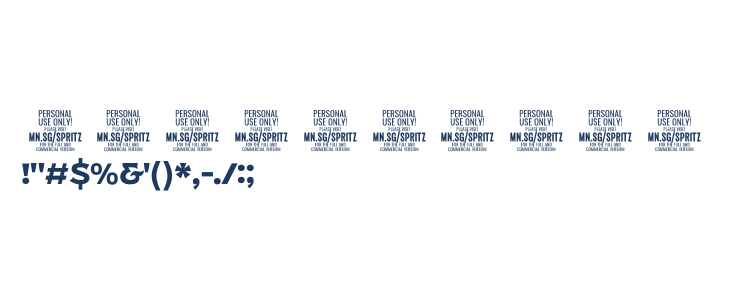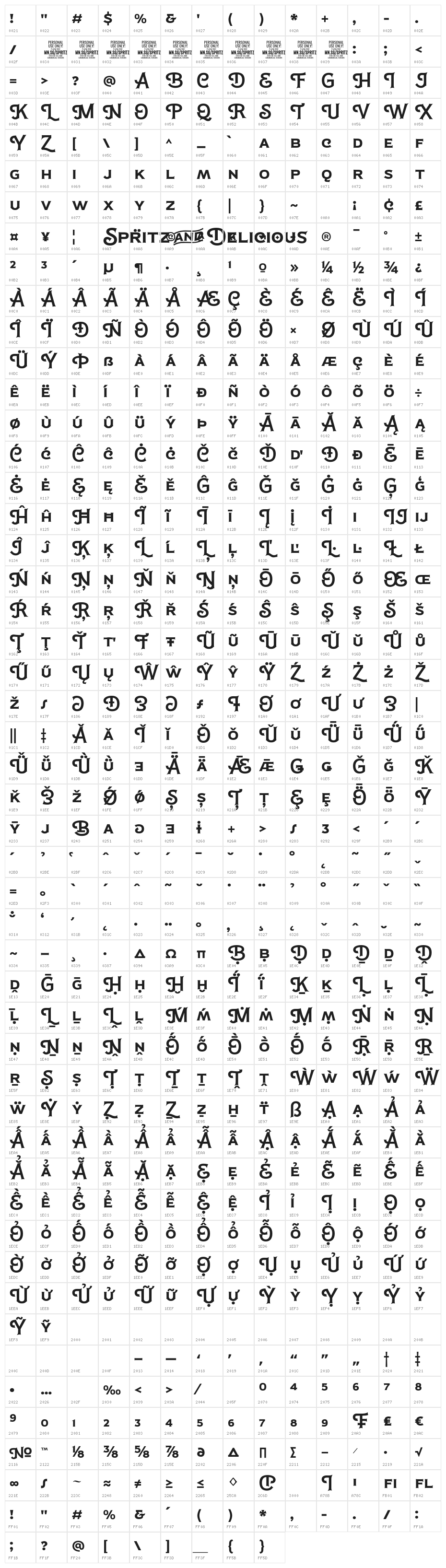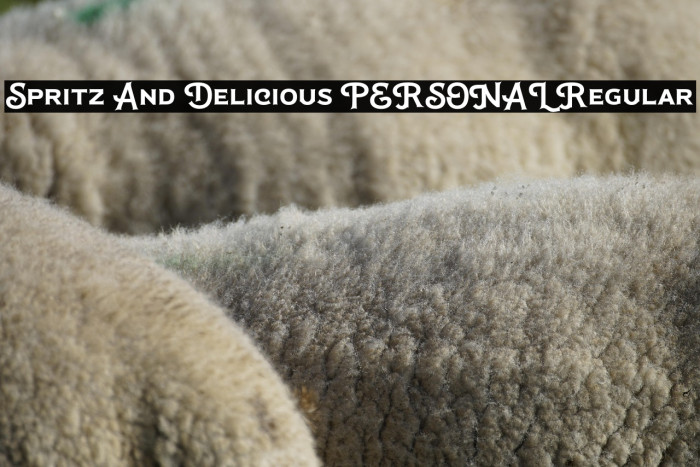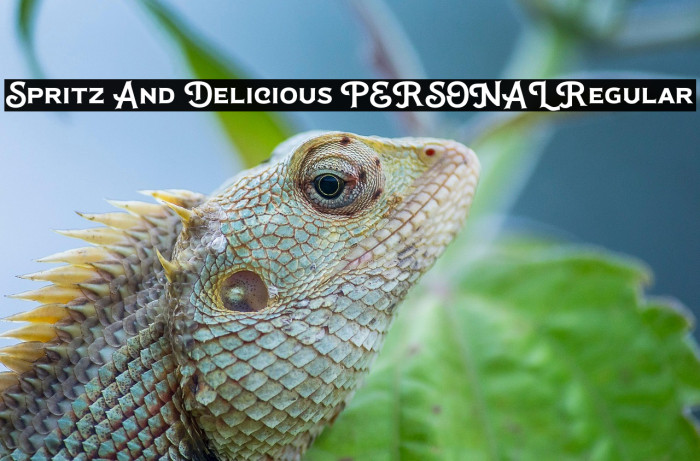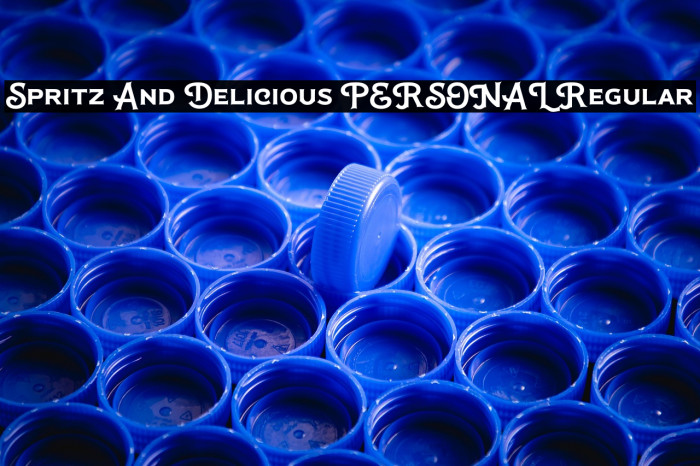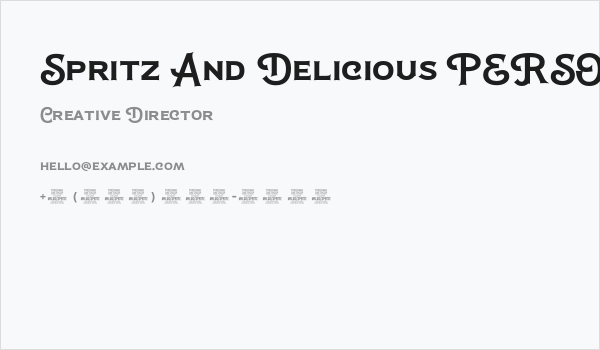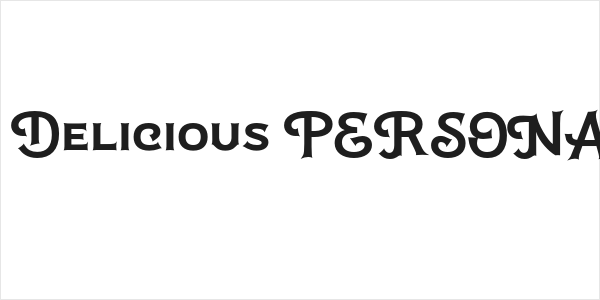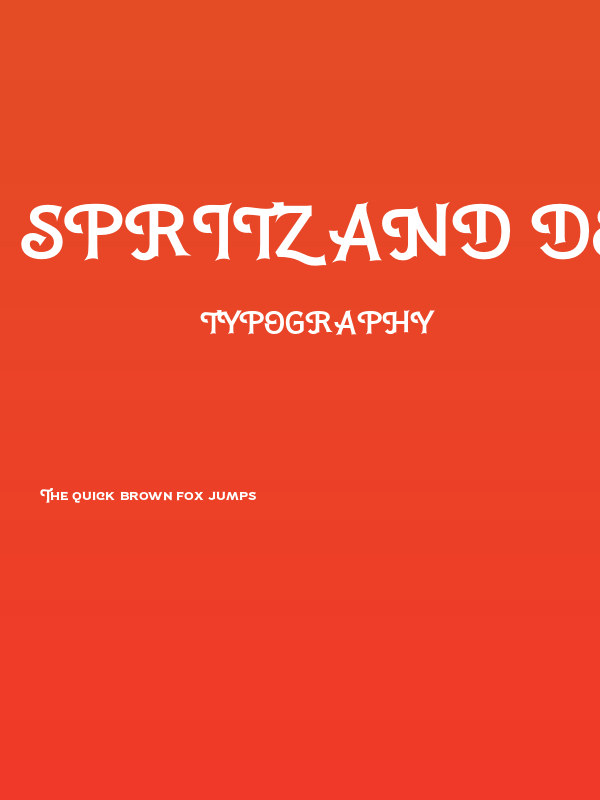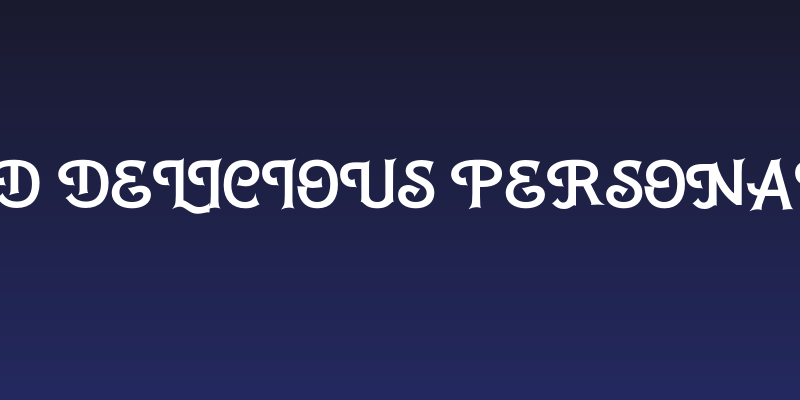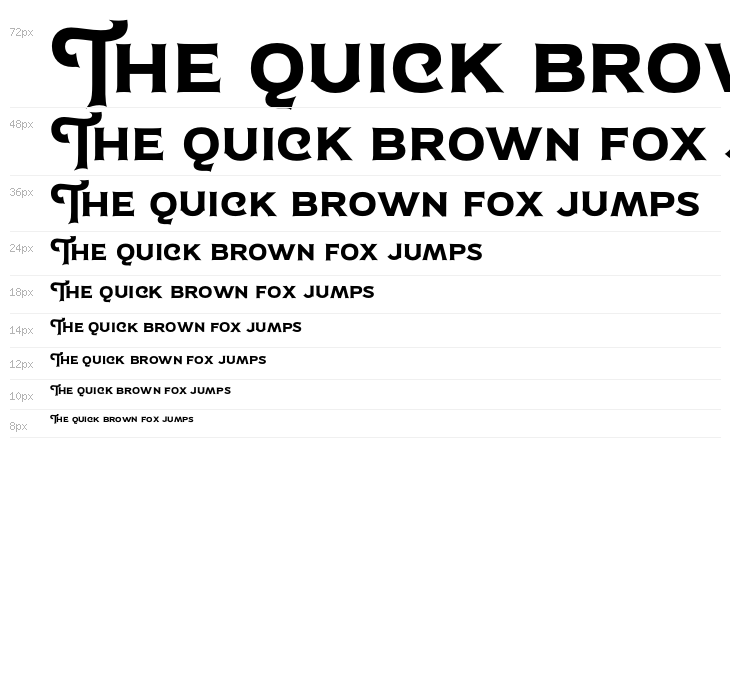
Spritz And Delicious PERSONAL Regular Font
Spritz And Delicious PERSONAL Regular Description
This font features a bold and decorative style with a unique flair in its letterforms. The uppercase letters have a distinct, ornate quality, with some characters incorporating subtle curves and flourishes. The lowercase letters maintain a strong presence, complementing the uppercase with a slightly more straightforward design. The numerals are consistent with the overall bold aesthetic, ensuring readability while maintaining the decorative theme. Special characters are stylized to match the font's distinctive look, making it suitable for creative and eye-catching designs.
| Proposed Projects | Ideal for branding, poster design, headlines, and any project requiring a bold, decorative touch. |